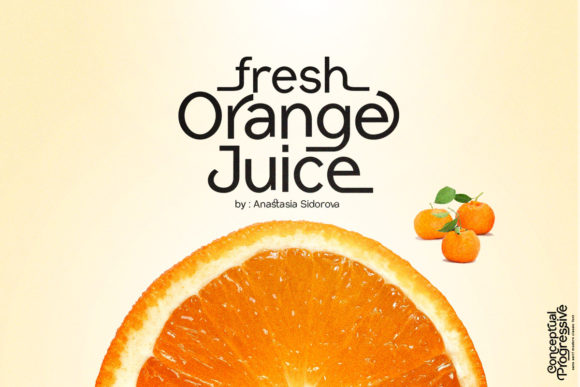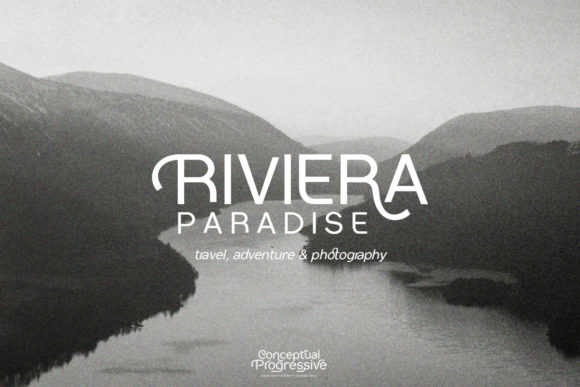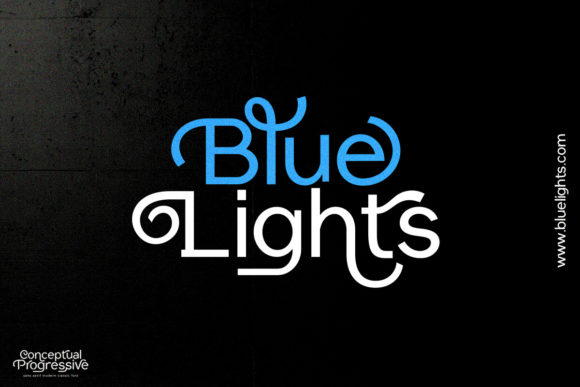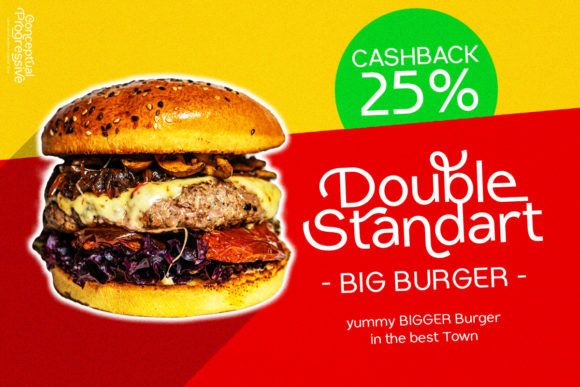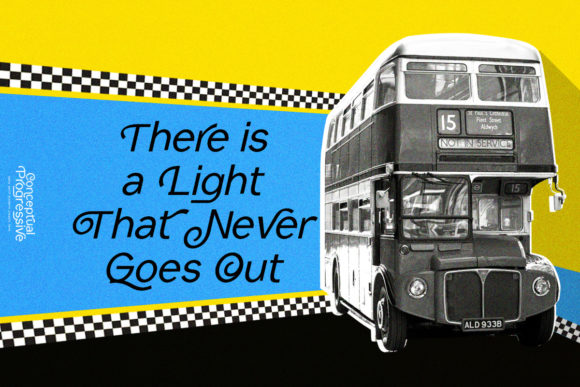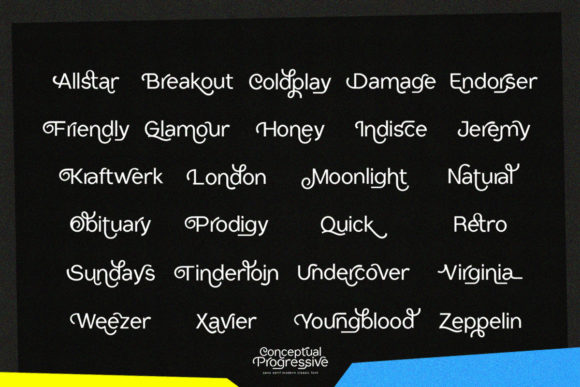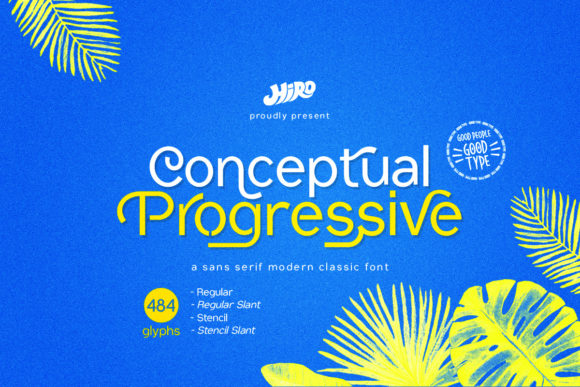
Introducing Conceptual Progressive Font: Elevate Your Designs with Elegance
In the world of typography, a font can make or break a design. It’s the foundation upon which your creative vision is built, and choosing the right one can be a daunting task. If you’re on the hunt for a versatile, elegant, and minimal sans serif font, look no further than Conceptual Progressive. This stunning typeface is poised to become your go-to font for a wide range of design projects, from branding and advertising to packaging and digital media.
The Essence of Conceptual Progressive
Conceptual Progressive is a masterclass in simplicity and sophistication. Its clean lines, neat style, and elegant curves make it the perfect choice for designers and crafters seeking a font that’s both modern and timeless. This minimal sans serif font exudes a sense of professionalism and refinement, making it suitable for a broad spectrum of designs, from corporate and editorial to creative and innovative.
Key Features of Conceptual Progressive
- Minimalist Design: Conceptual Progressive boasts a sleek, uncluttered design that allows your content to take center stage.
- Elegant Curves: The font’s smooth, flowing curves add a touch of sophistication and refinement to any design.
- Versatile: Whether you’re working on a branding project, creating a website, or designing a brochure, Conceptual Progressive adapts seamlessly to any medium.
- Simple yet Impactful: This font’s subtle beauty belies its ability to make a lasting impression on your audience.
Why Choose Conceptual Progressive?
With so many fonts available, it’s essential to select one that meets your design needs and enhances your creative vision. Here are just a few reasons why Conceptual Progressive stands out from the crowd:
- Readability: The font’s clear, legible design ensures that your message is conveyed with ease, even at smaller font sizes.
- Flexibility: Conceptual Progressive is suitable for a wide range of design applications, from digital media to print materials.
- Timeless Appeal: This font’s classic design ensures that it won’t go out of style anytime soon, making it a valuable addition to your design arsenal.
Design Applications for Conceptual Progressive
The versatility of Conceptual Progressive makes it an excellent choice for various design projects, including:
- Branding and Identity: Create a lasting impression with a font that exudes professionalism and elegance.
- Web Design: Enhance your website’s typography with a font that’s optimized for digital media.
- Print Materials: From brochures and business cards to packaging and posters, Conceptual Progressive is the perfect choice for any print project.
- Advertising and Marketing: Make a statement with a font that’s sure to grab attention and leave a lasting impression.
In conclusion, Conceptual Progressive is a game-changing font that deserves a spot in every designer’s toolkit. Its unique blend of elegance, simplicity, and versatility makes it an excellent choice for a wide range of design projects. Whether you’re a seasoned designer or a crafty DIY enthusiast, Conceptual Progressive is sure to become your go-to font for all your design needs. So why wait? Discover the power of Conceptual Progressive and elevate your designs to new heights!